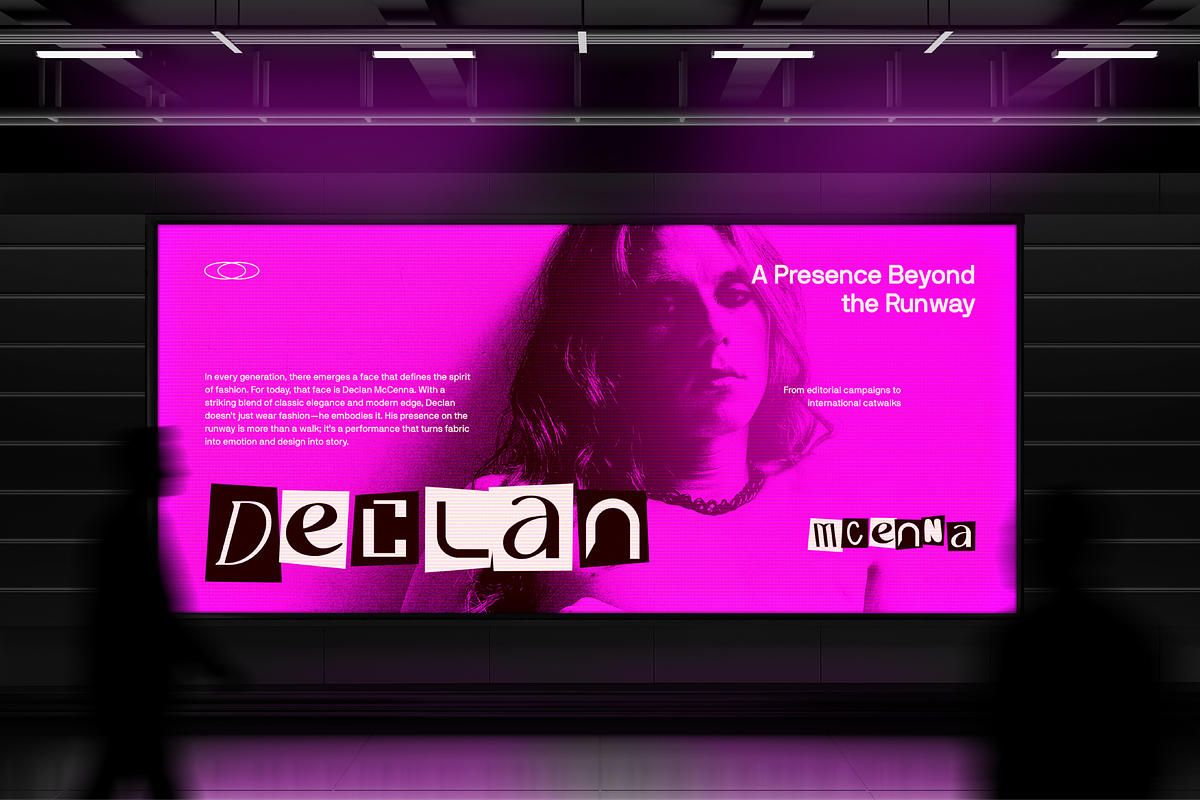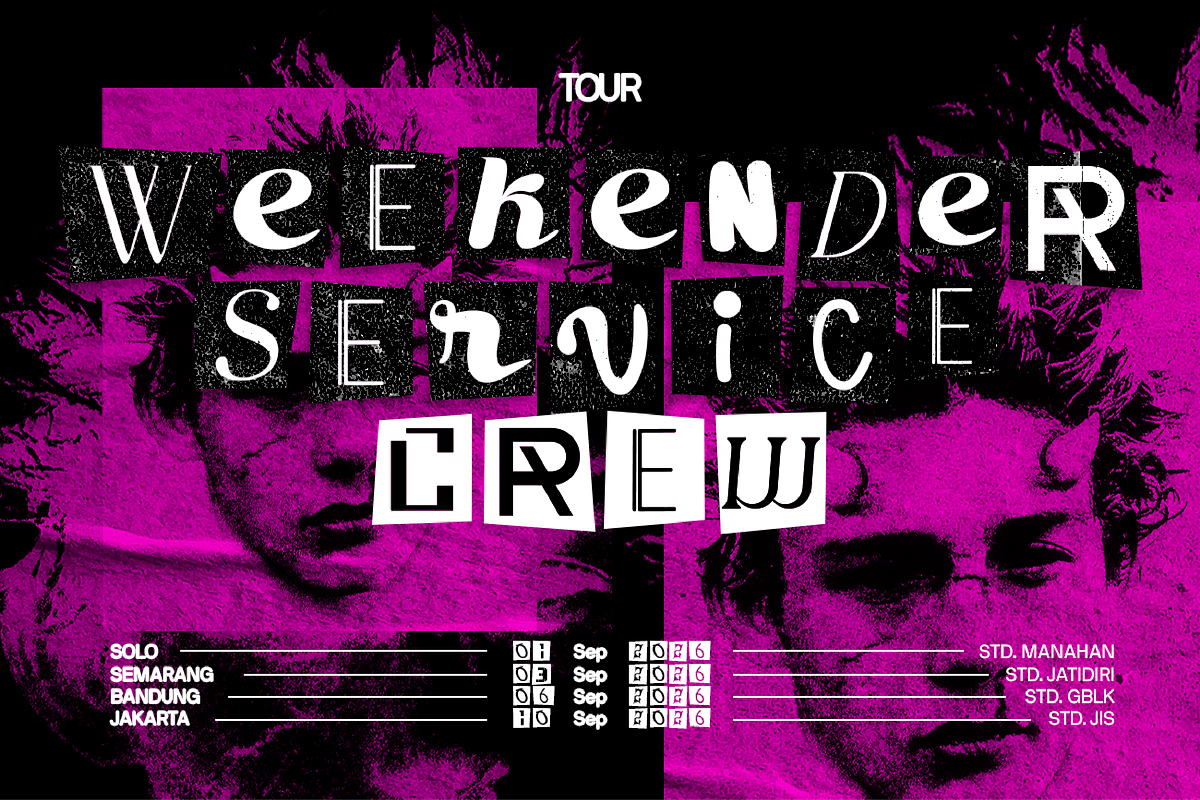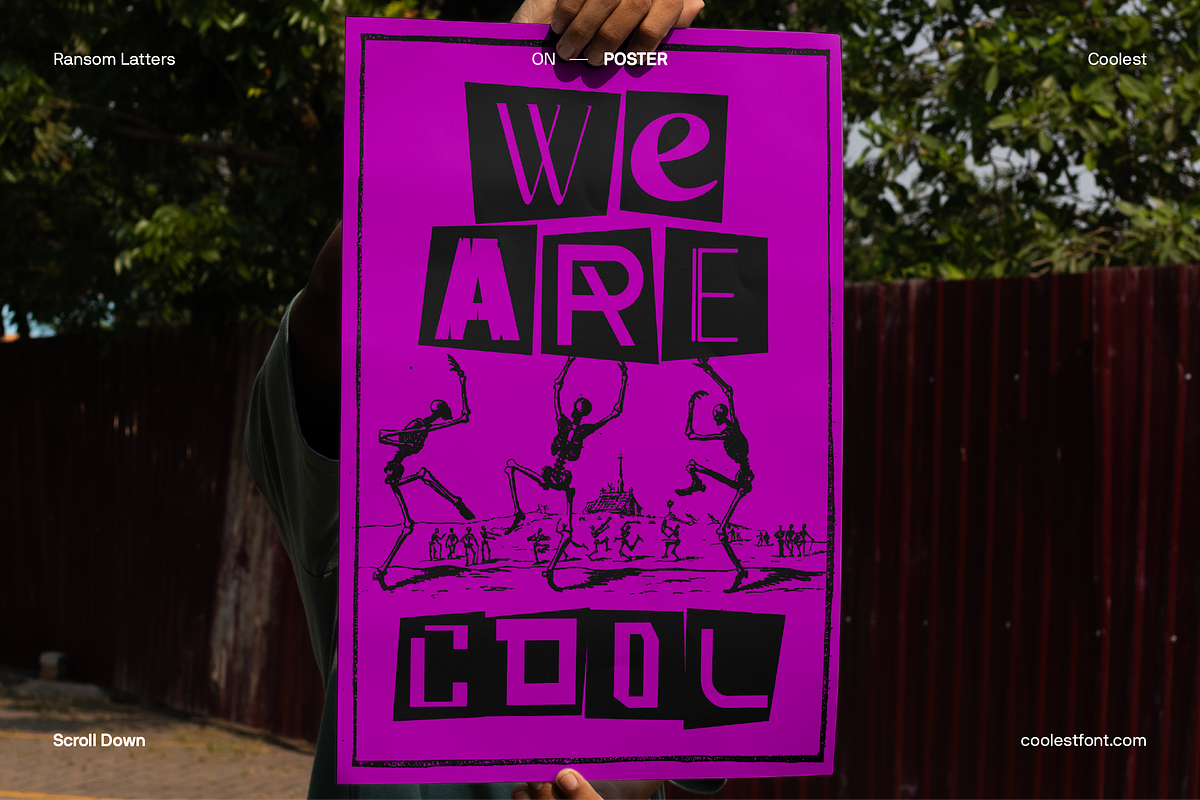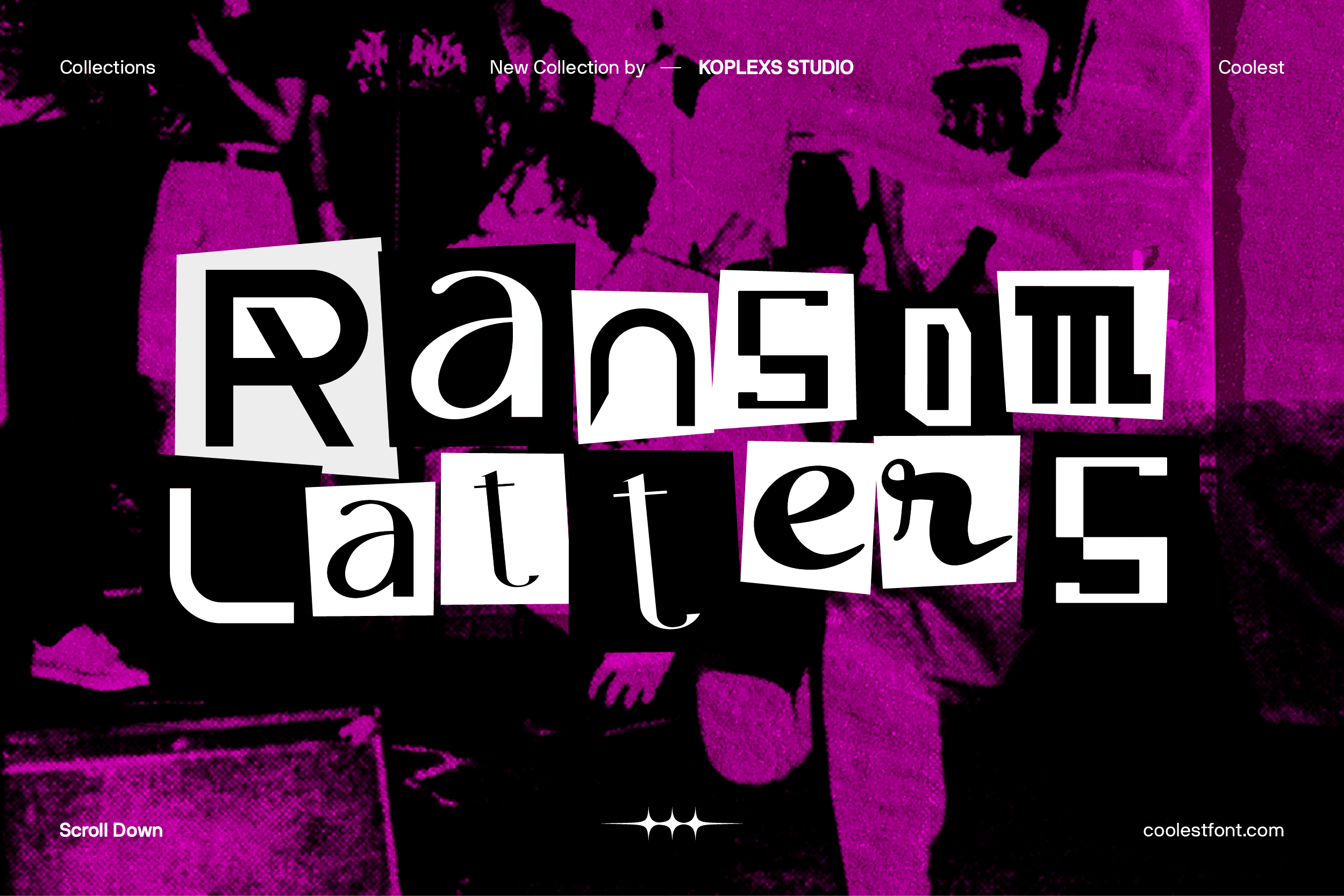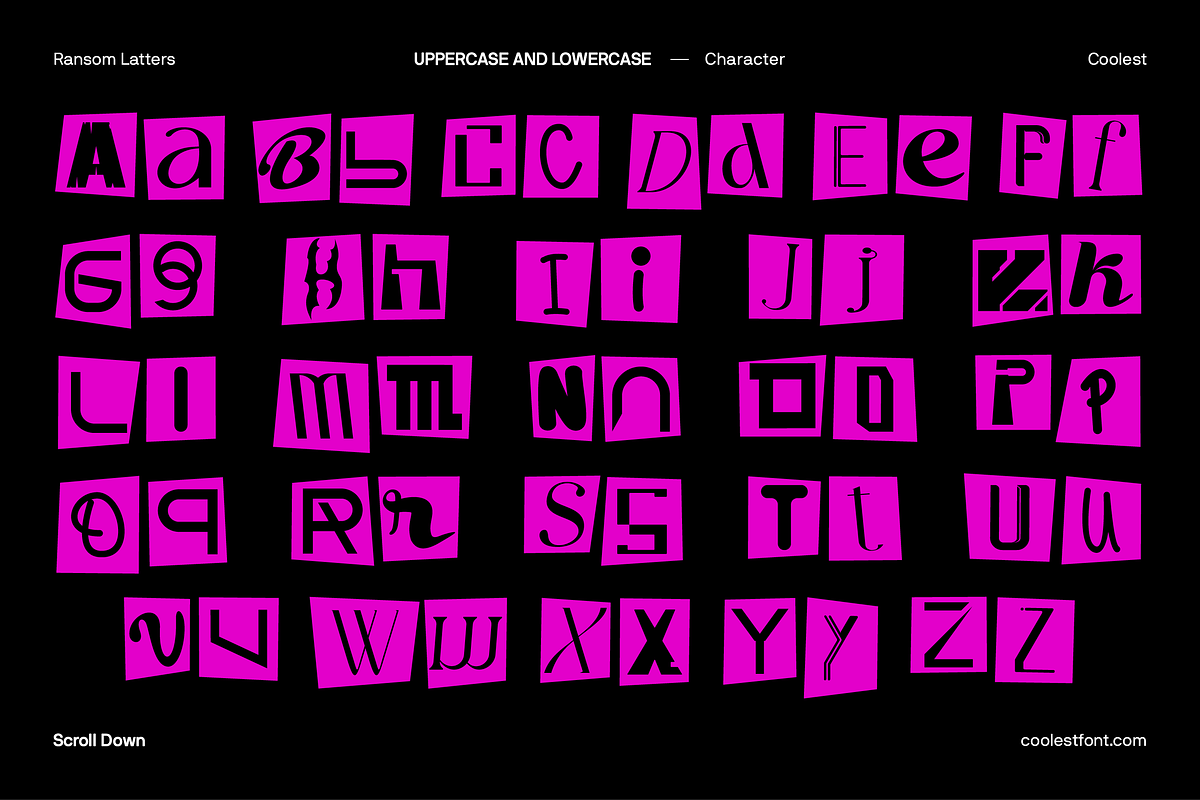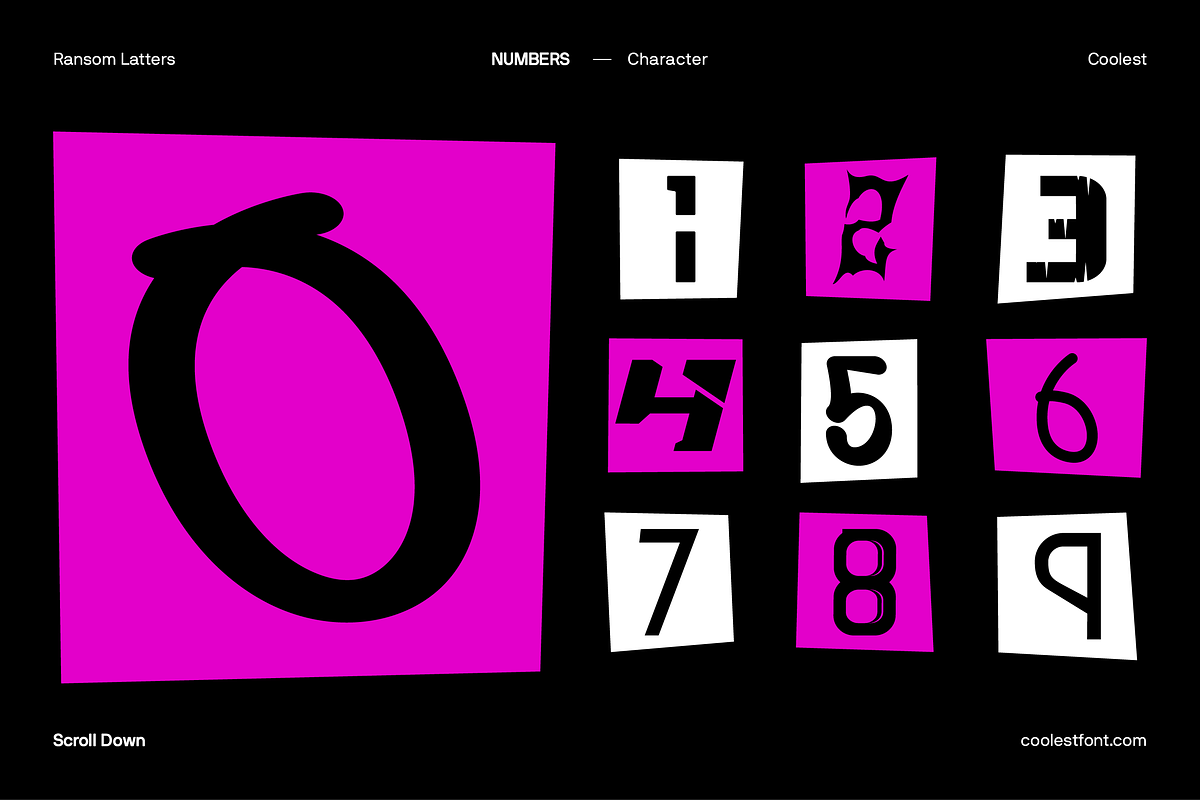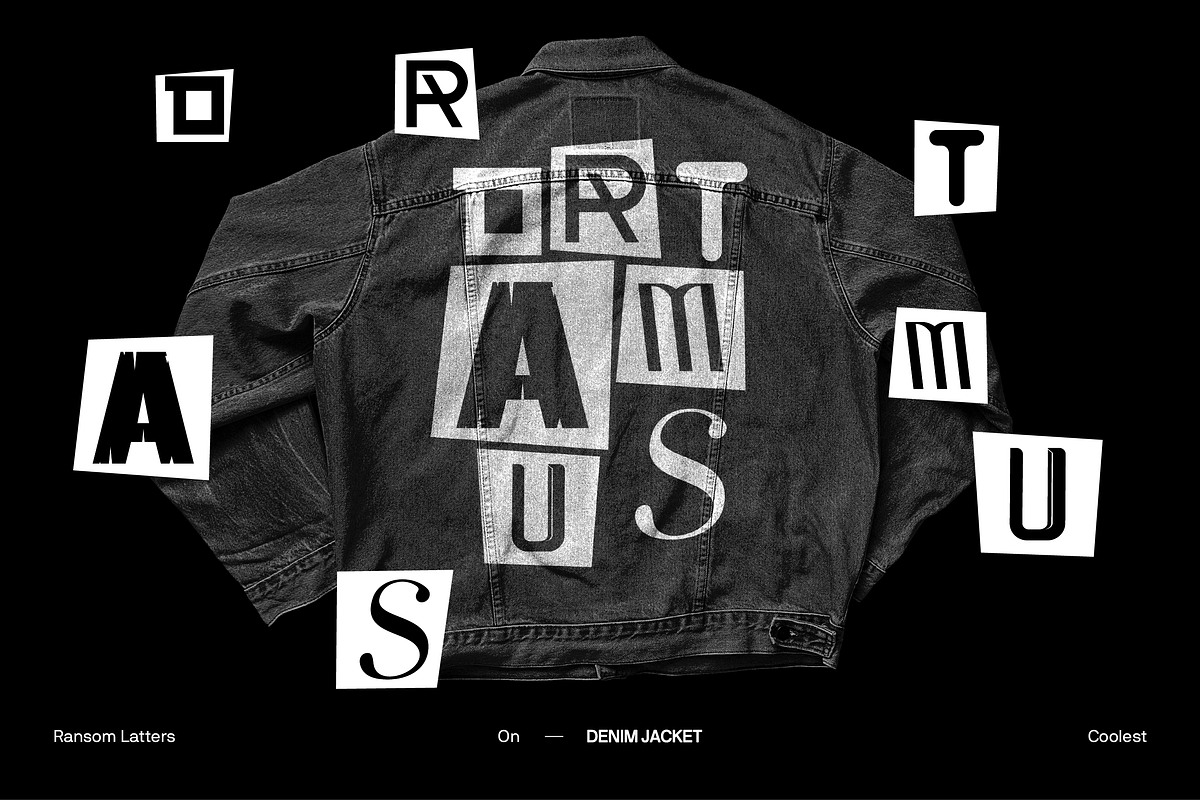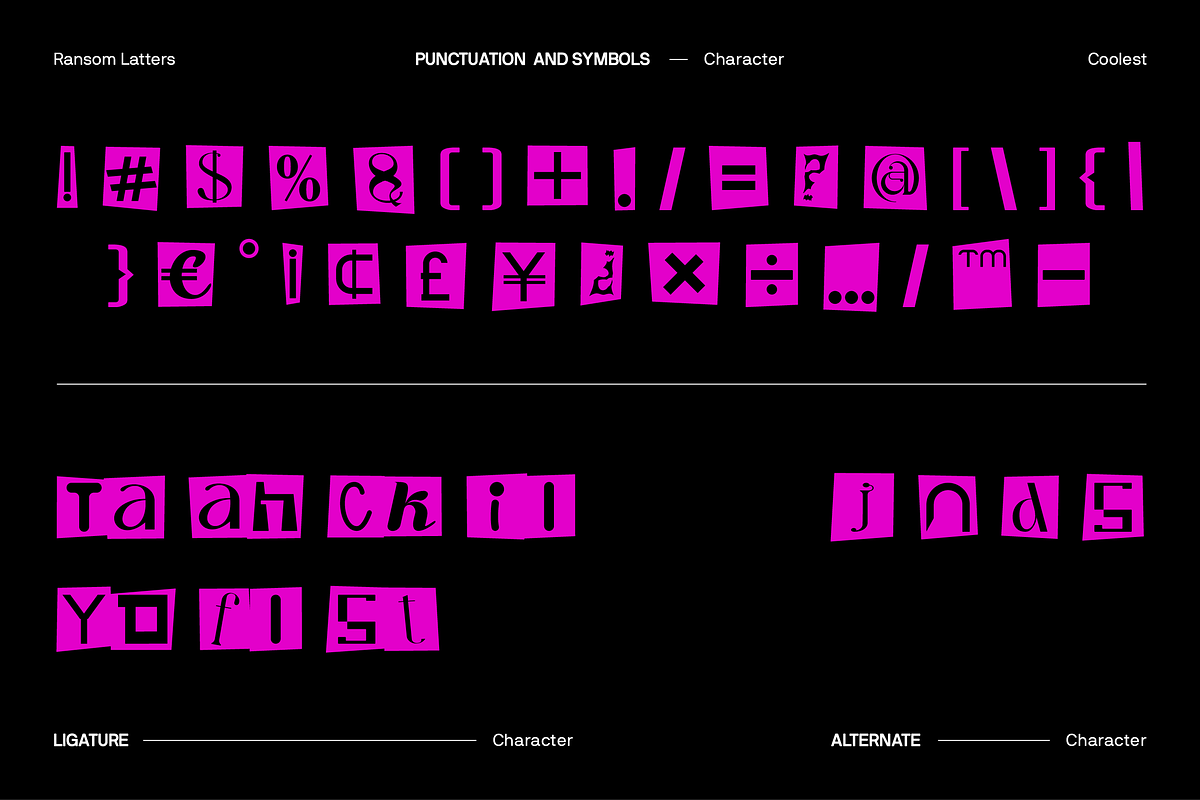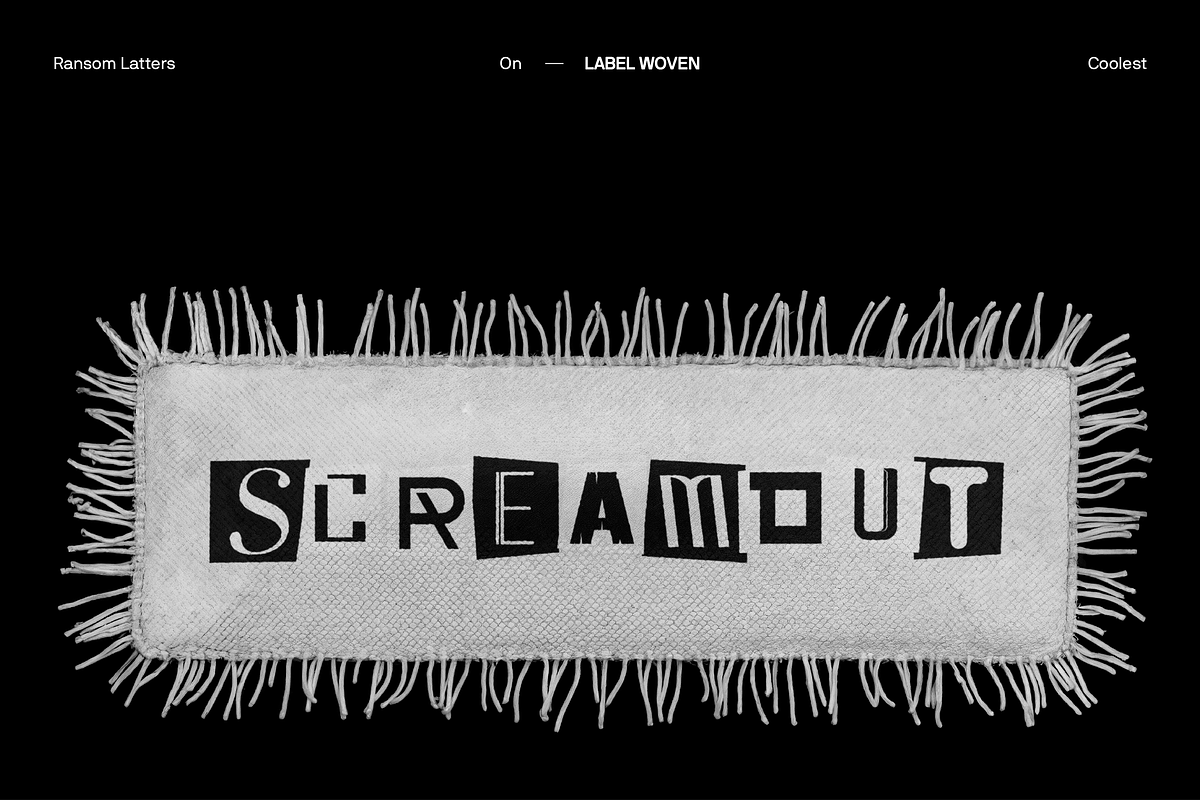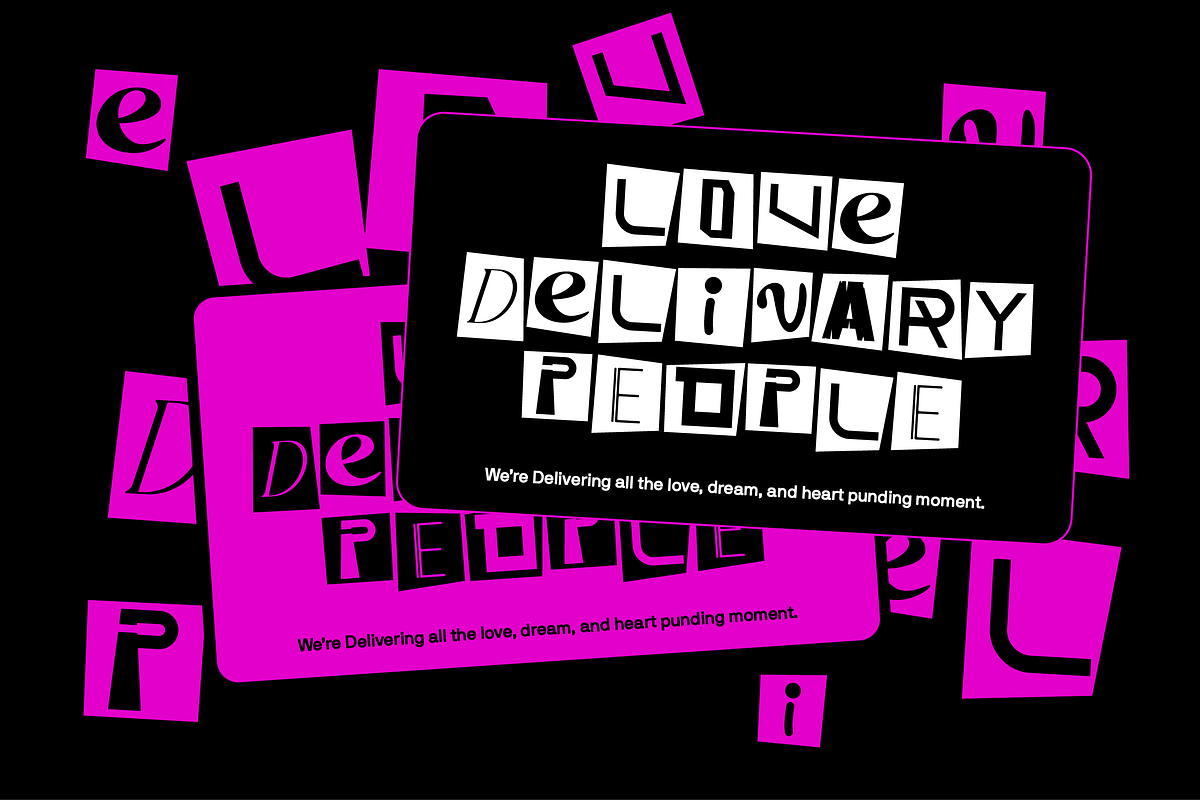
Ransom Latters Font
Ransom Latters Font | Modern Display Font, Playful Fancy Typography for Logos and Posters
Ransom Latters Font is a modern display font with a unique playful and fancy font style that blends artistic creativity and contemporary design. Inspired by ransom-note collage aesthetics, this aesthetic font from Koplexs Studio gives every word a handcrafted and expressive personality.
Perfect for designers who love experimental and bold typography, Ransom Latters Font brings movement and character into your visual projects. Each letter was carefully designed to appear spontaneous yet refined, making it a versatile branding font, headline font, logo font, and poster font that instantly grabs attention.
With its mix of sharp edges and smooth curves, this elegant font adds a touch of chaos and beauty to your design compositions. The modern font layout also makes it suitable for editorial design, album covers, merchandise, and digital branding projects. Whether you are designing for fashion, art, music, or lifestyle, this cool font elevates your message with confidence and visual flair.
✨ Why You’ll Love Ransom Latters Font:
Unique ransom-style collage look High contrast and dynamic letterforms Works perfectly in both print and digital media Easy to combine with minimalist or bold layouts Ideal for edgy, artistic, and luxury branding
🖋️ Perfect For:
- Branding and visual identity
- Posters, album covers, and flyers
- Editorial and magazine layouts
- Fashion and lifestyle packaging
- Product labels, social media templates, and website headers
Ransom Latters Font is more than just a font. It is a statement piece that turns ordinary text into powerful visuals.